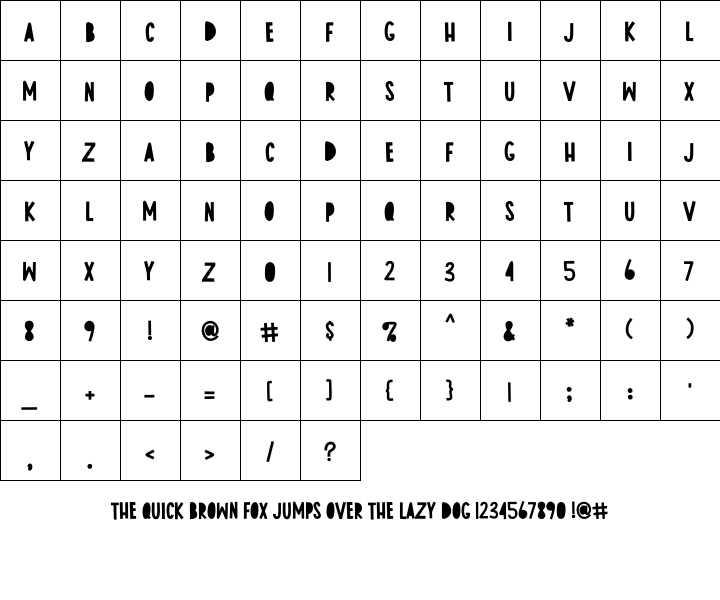
The Docallisme – Amry Al Mursalaat is the designer of this wonderful typeface. Rockers Bulshit Font is a comic typeface. It was designed specifically for utilization in comics and graphic novels.
It is available in both regular and Italic versions. This texture family consists of different weights: Light, Regular, Bold, and Black. It is a great choice for utilization in comics, graphic novels, and many other situations, where you need a readable, attention-grabbing typeface.
It has a complete set of characters including uppercase letters and lowercase letters, numbers, digits, punctuation, and accented structures for international languages. It is identical to the antre font. This texture has a neat and stylish texture look impression.
The letters are designed to be easily read at small sizes, and the spacing between the letters is generous, making it ideal for use in comics where text is often incorporated into the artwork.
Creator of Rockers Bulshit Font
The Docallisme – Amry Al Mursalaat is the designer of this wonderful typeface. It is a comic typeface.
This single attractive style combines different factors, including uppercase letters and lower-case letters, digits, punctuations, characters, unique symbols, glyphs, and numerous language support.
| Style | Comic |
| Designer | The Docallisme – Amry Al Mursalaat |
What type of Font is Rockers Bulshit Font?
This typeface is a member of the comic typeface family. It has very attractive and eye-catching structures that look impressive to the viewers.
Who is the designer of the Rockers Bulshit typeface?
The Rockers Bulshit texture was designed by a famous graphic designer named The Docallisme – Amry Al Mursalaat.
What font is closest to Rockers Bulshit Font?
The closest font of this attractive typeface is vintage king font.